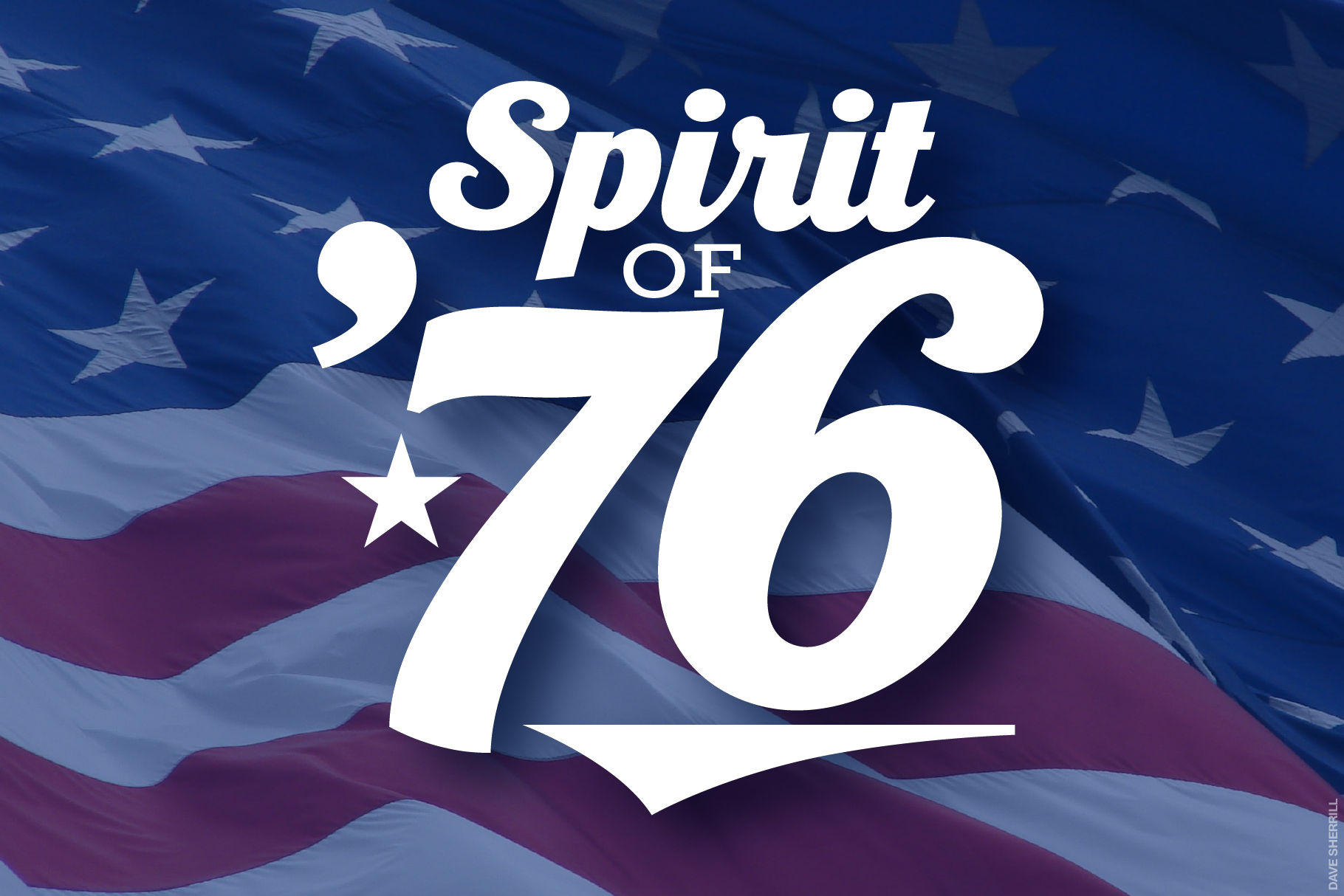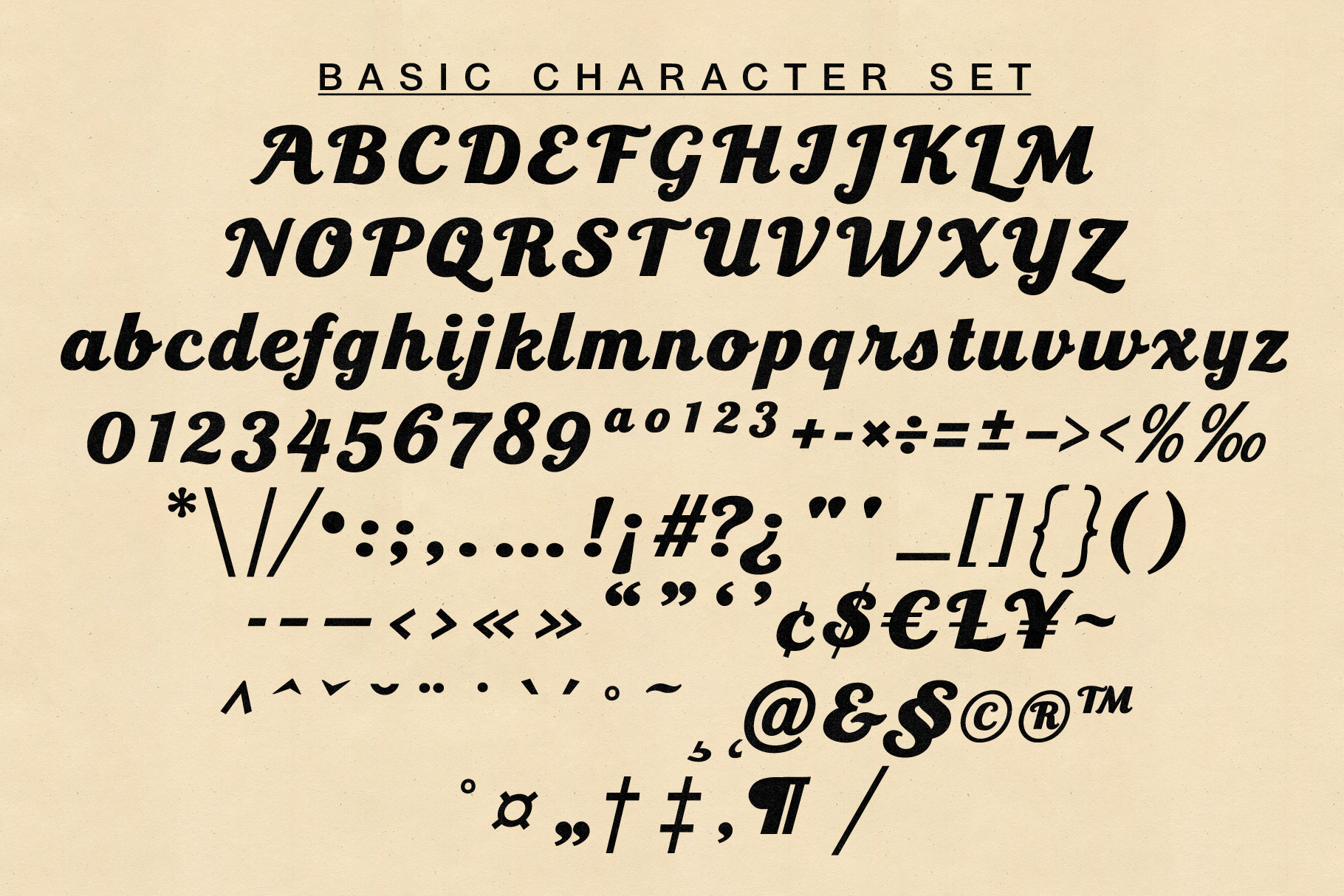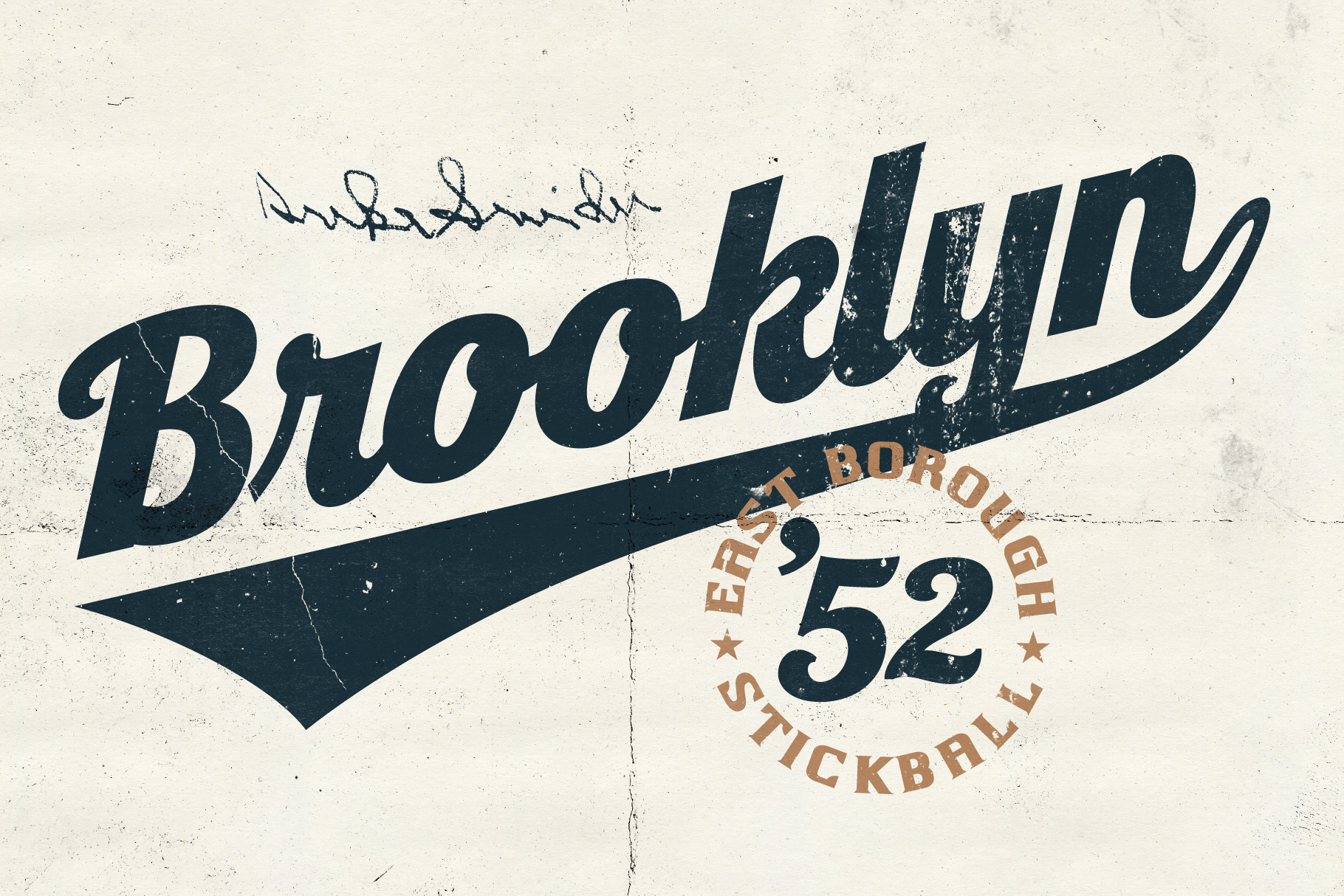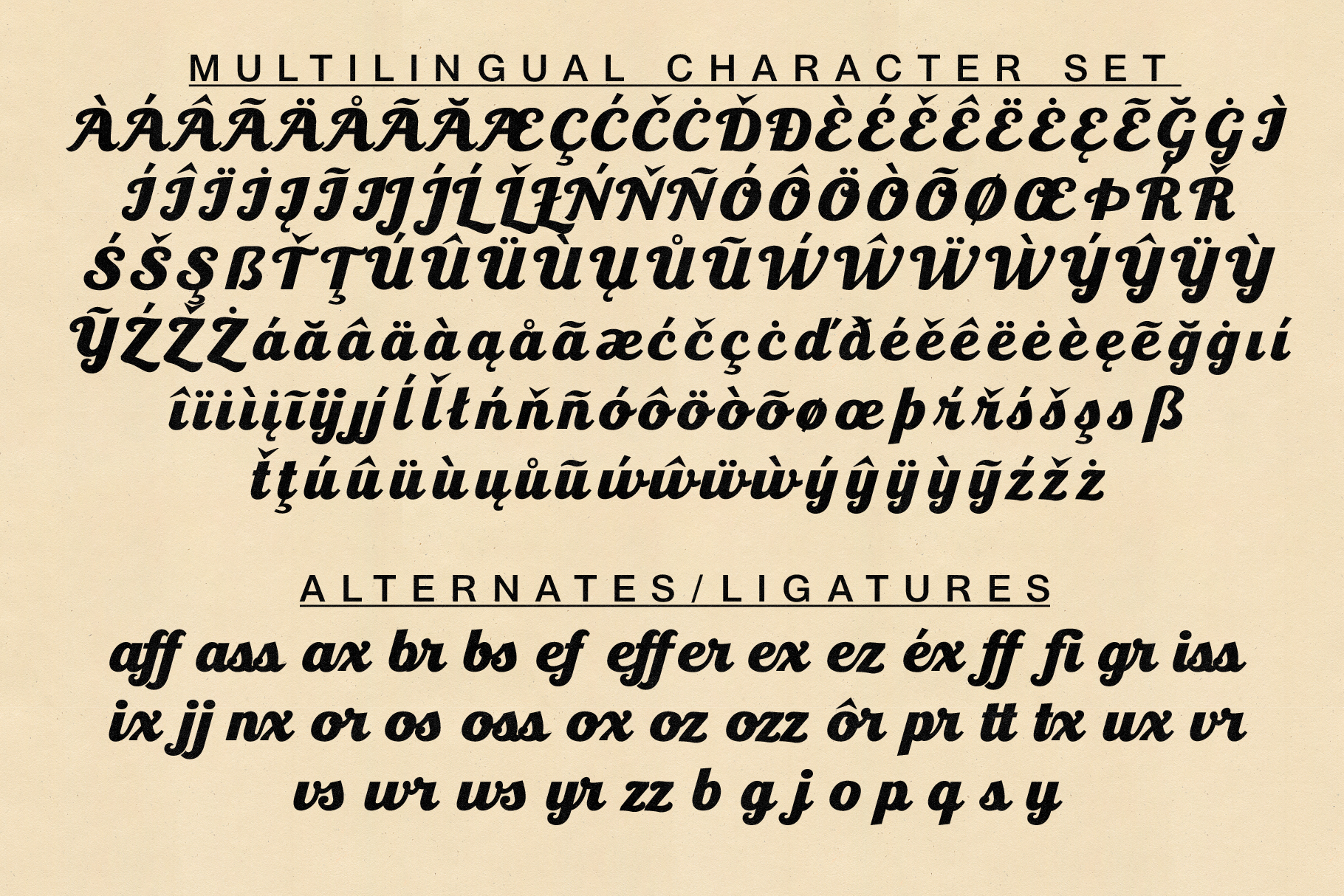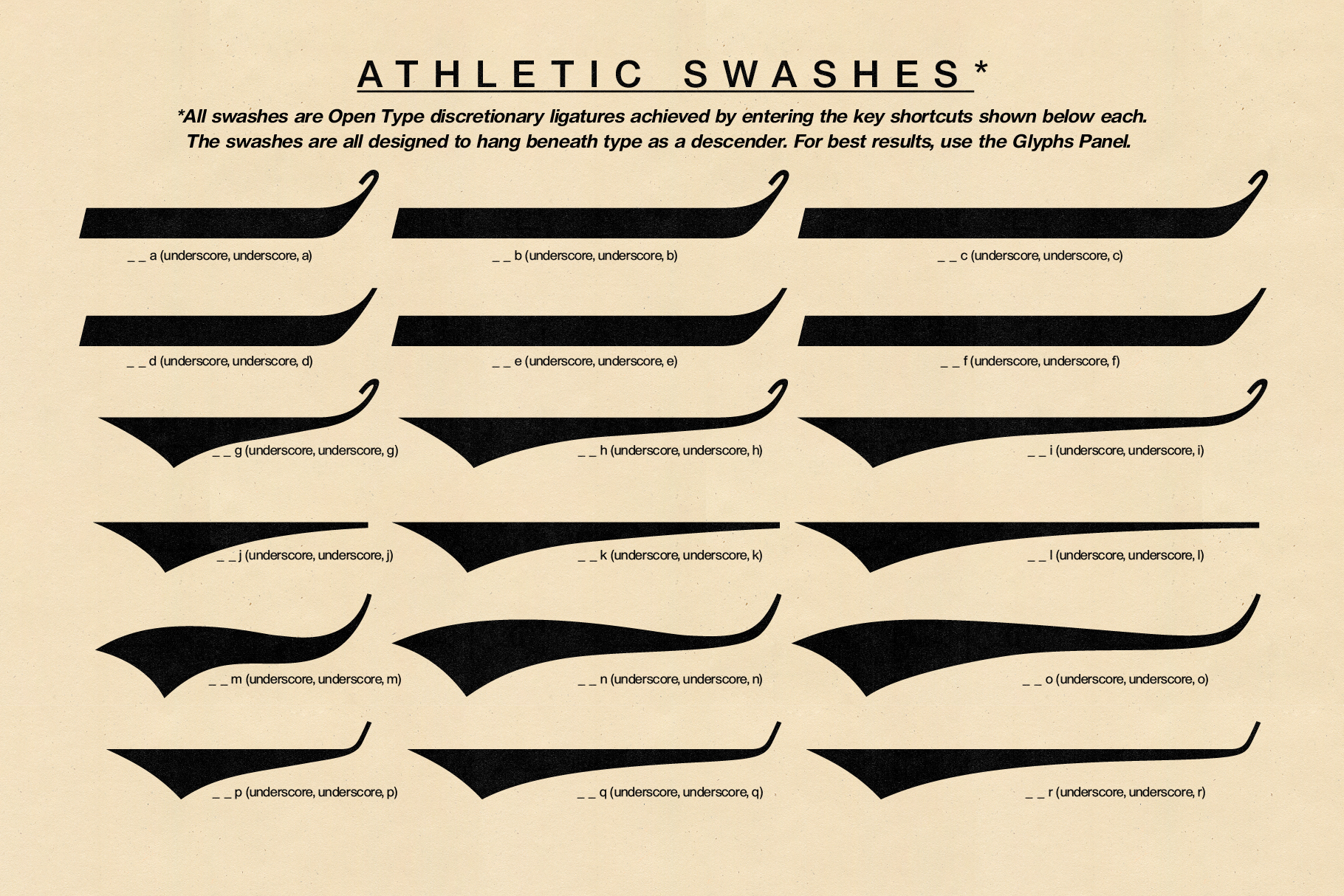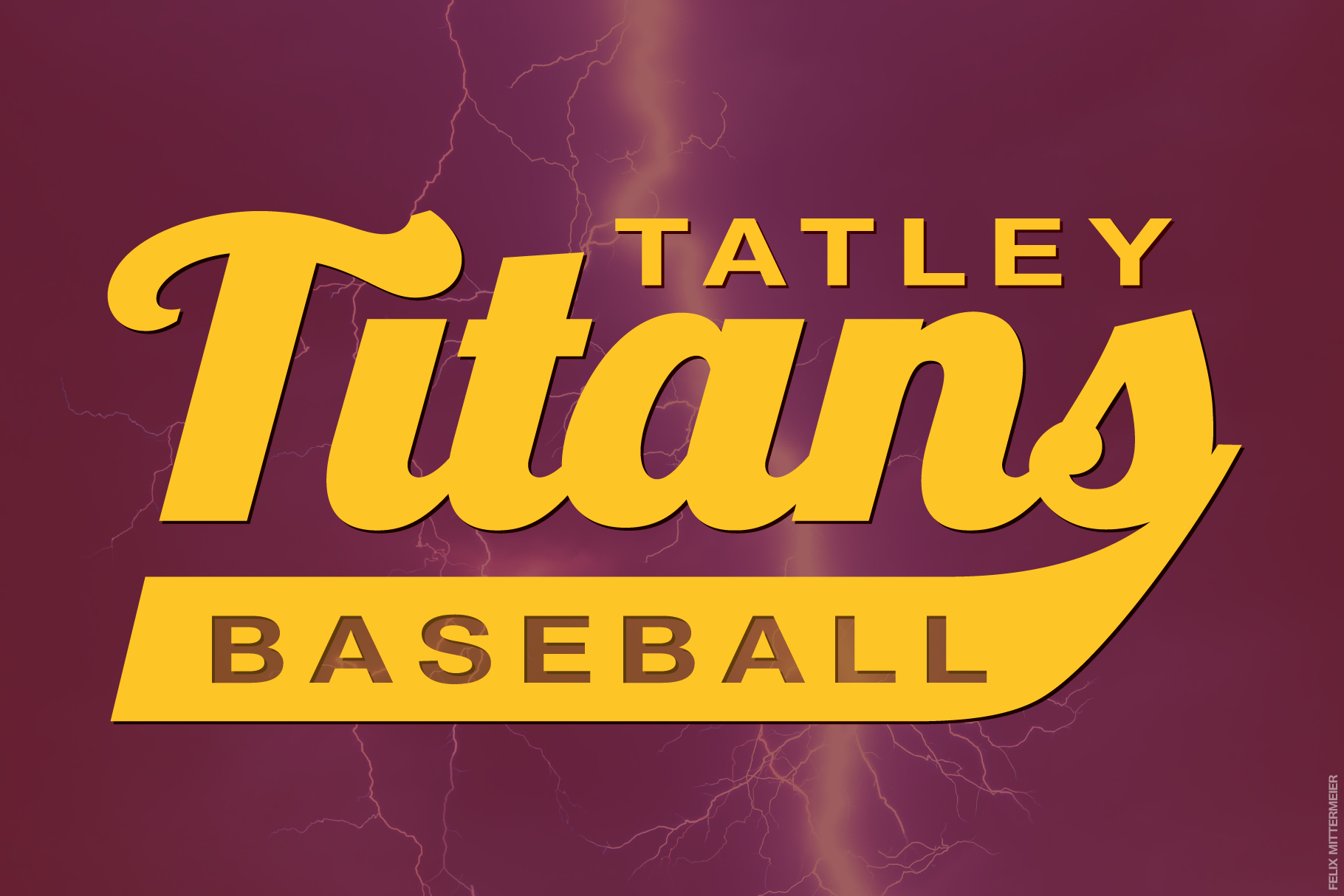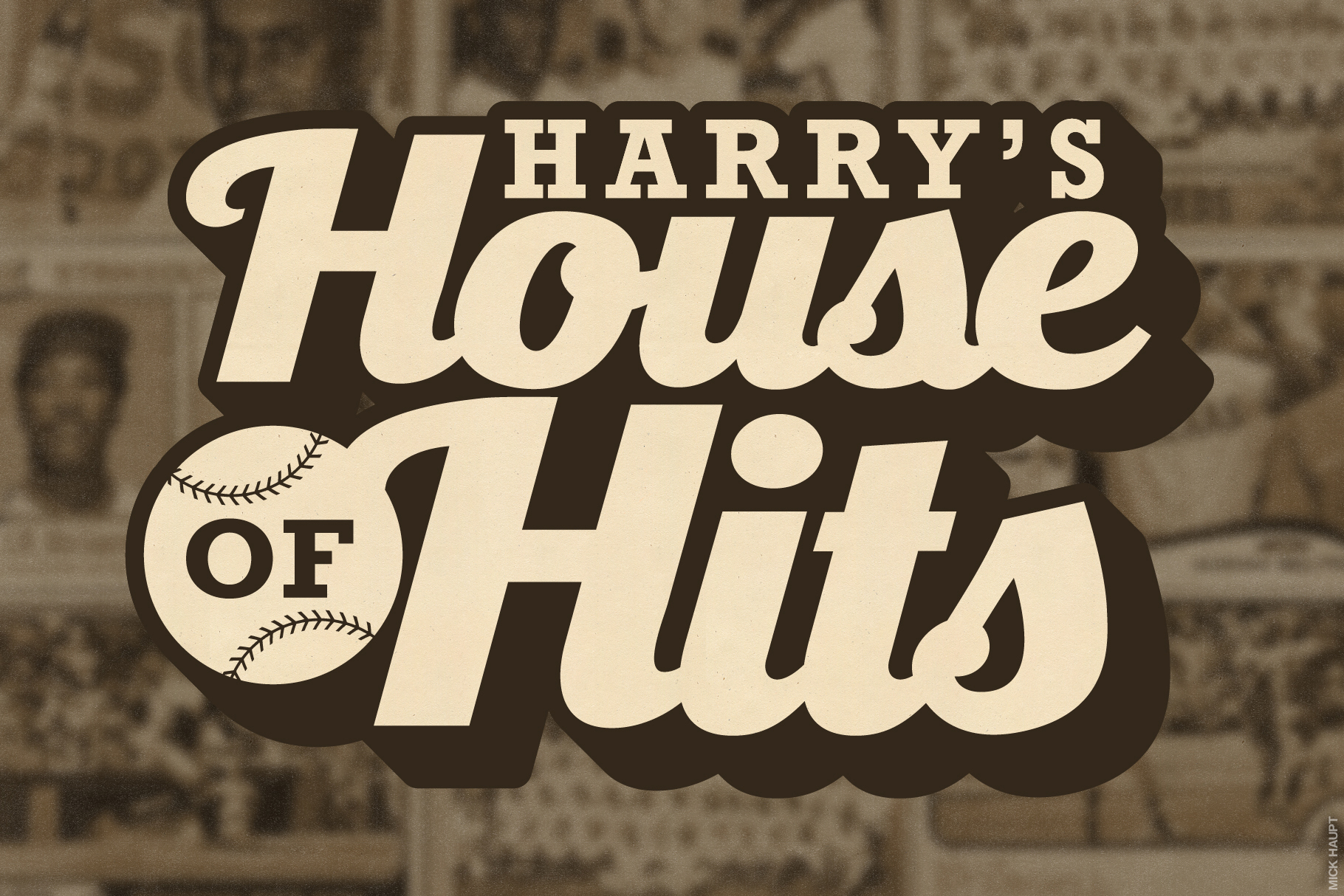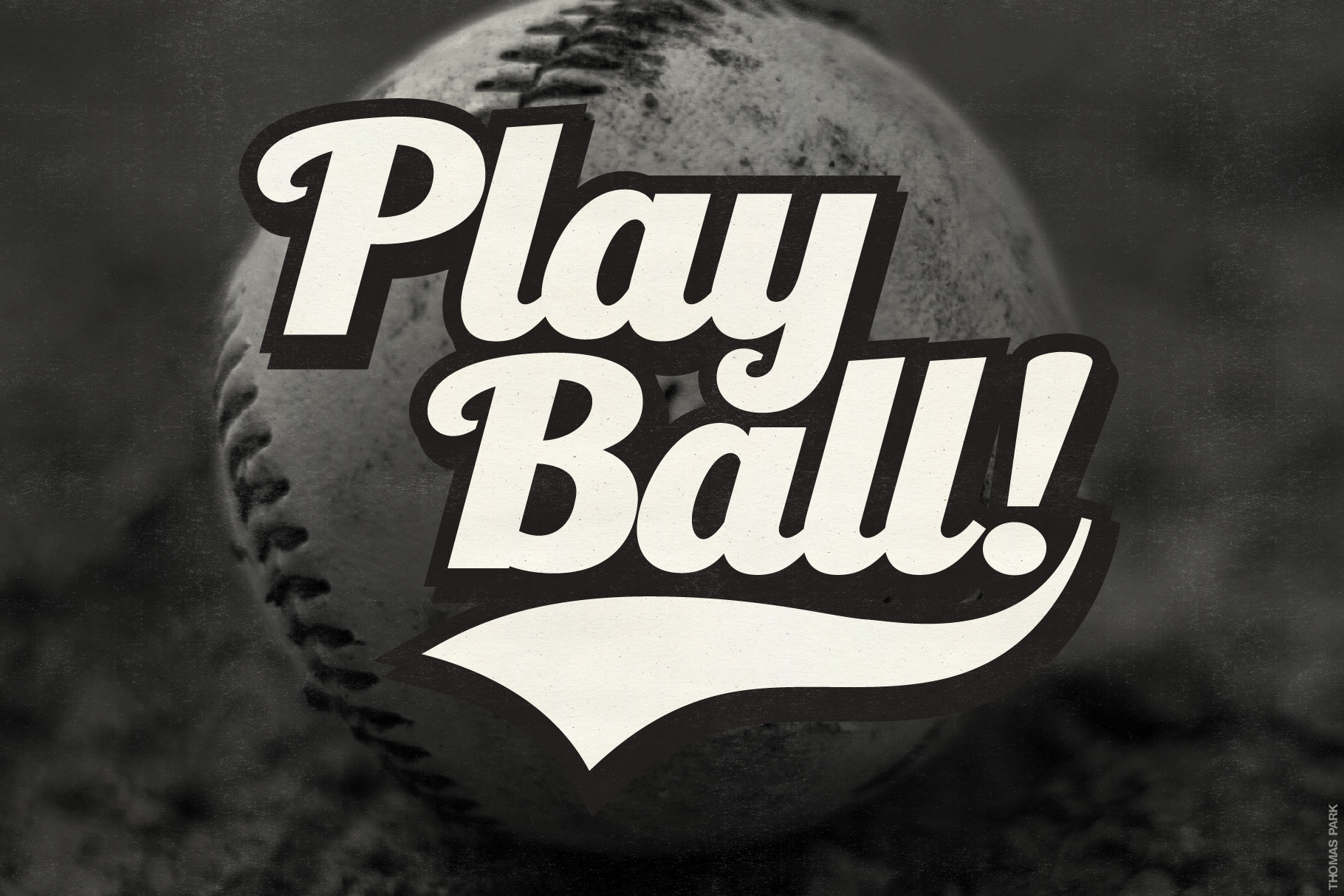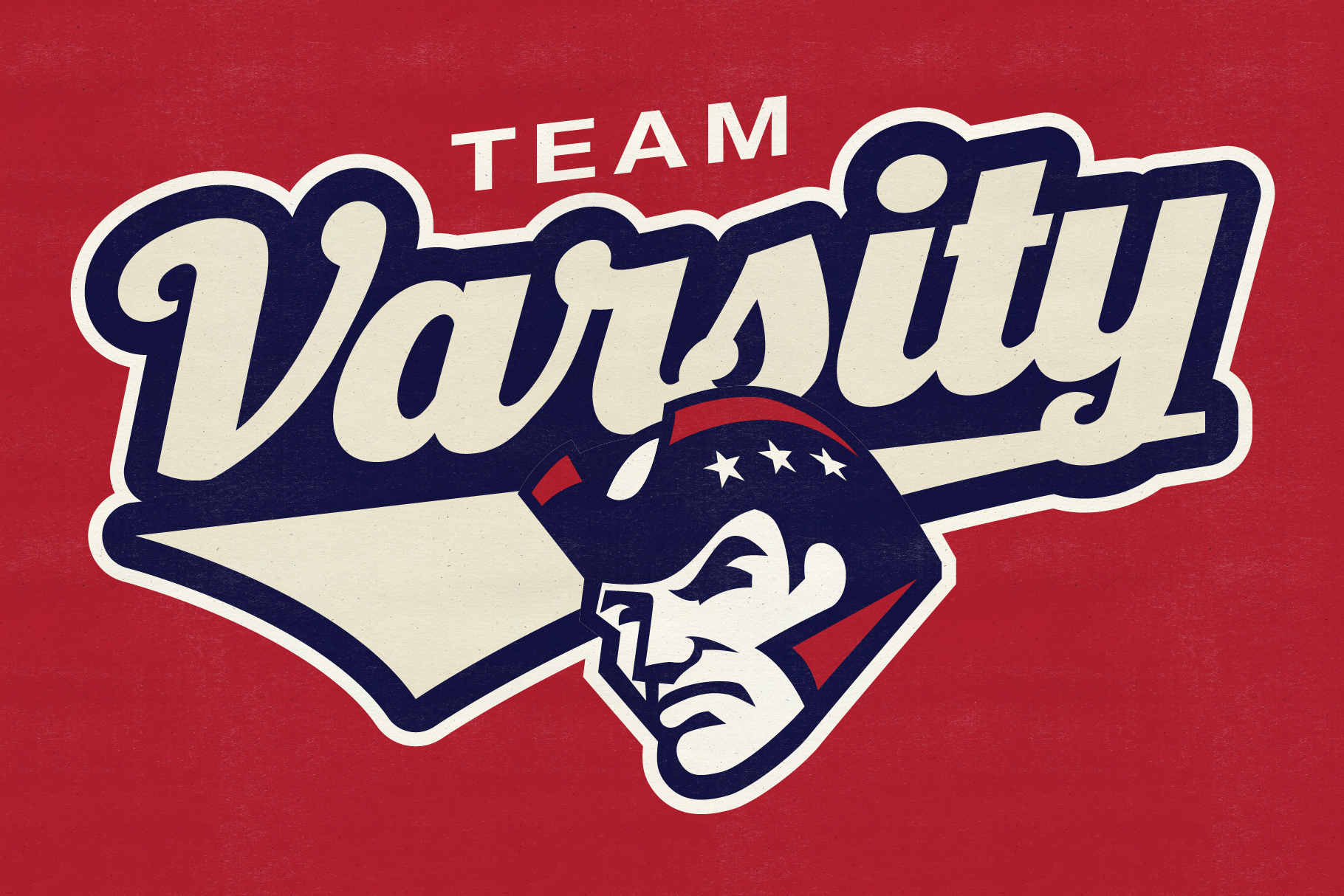
Bandbox | Athletic Script Typeface
StudioWorks presents •• B A N D B O X •• — a bold athletic script typeface.
Inspired by classic sport logo lock-ups, *Bandbox* delivers with its heavy, streaming cursive letterforms. *Bandbox’s* wide, gently-sloped script comes bundled with a collection of ligatures and 18 athletic swash banners, perfect for logotype, posters and t-shirt designs.
• Alternates, Ligatures and Swashes
NOTE: The *Bandbox* title art, ‘Varsity’ and ‘Brooklyn’ pieces take advantage of shearing to angle the text. The sans serif complement used on the title art, ‘Varsity’ and ‘Titans’ pieces is *Thoren Sans* (available from StudioWorks). The ‘East Borough Stickball’ typeface is *Killebrew Homer* (also available from StudioWorks). Alternate characters, ligatures and swashes are best seen using the Glyphs Panel. Applications that support Open Type features is highly recommended. If you’re not sure if your application supports Open Type features check out this link.